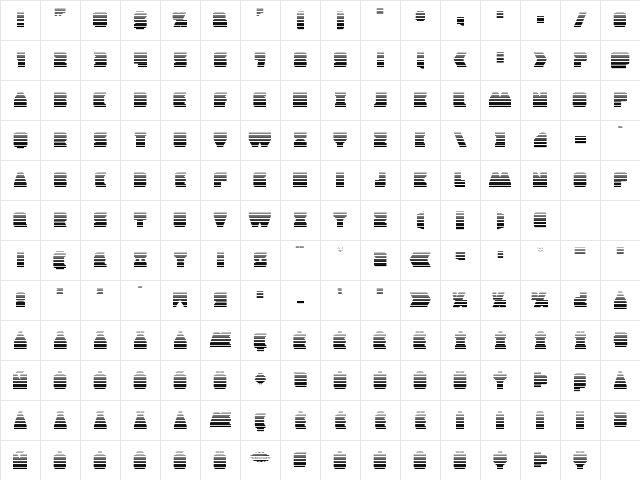
Complete Contour of Duty Gradient Regular glyph index. Displaying only characters natively supported by Contour of Duty Gradient Regular font.
Contour of Duty Gradient is a composed and adaptable typeface that performs quietly and consistently across a wide range of design contexts.